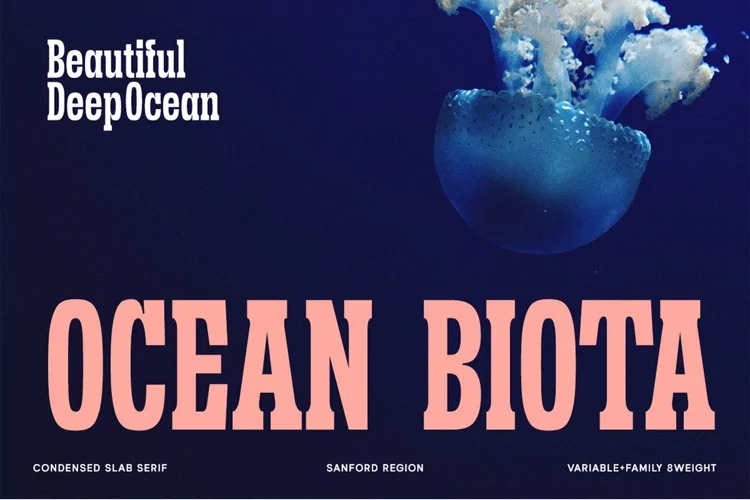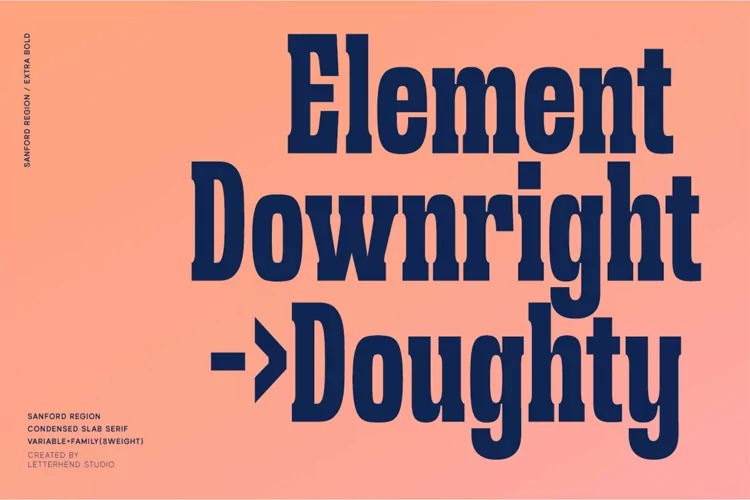
Sanford Region Font
Sanford Region Slab Serif Font is a slab serif font manufactured by Letterhend Studio. Sanford Region inspired by the 80s and 90s vibe font. This font is a variable font with 8 weight style you can choose from. Perfectly made to be applied especially in logo, headline, signage and the other various formal forms such as invitations, labels, logos, magazines, books, greeting / wedding cards, packaging, fashion, make up, stationery, novels, labels or any type of advertising purpose.